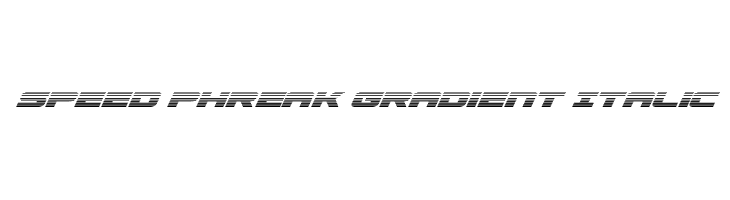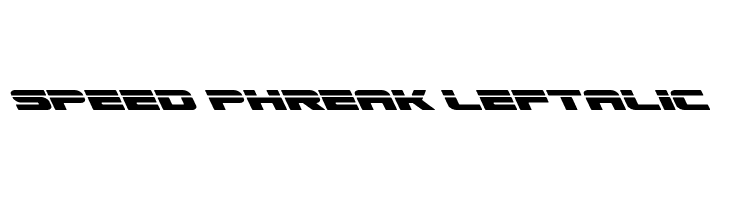
• Speed Phreak Gradient Italic 字体
A dynamic, gradient italic font with a futuristic and speedy appearance.
• Speed Phreak Halftone 字体
A bold, futuristic font with a halftone effect and dynamic lines.
• Speed Phreak Halftone Italic 字体
A bold, italicized font with a halftone effect, perfect for dynamic and modern designs.
• Speed Phreak Italic 字体
A bold, italicized font with a futuristic and dynamic style.
• Speed Phreak Laser 字体
A futuristic, segmented font with bold, geometric letterforms.
• Speed Phreak Laser Italic 字体
A futuristic, segmented italic font with bold, angular lines and a dynamic style.
• Speed Phreak Leftalic 字体
A bold, left-italic, futuristic font with a dynamic, fast-paced look.
• Speed Phreak Outline 字体
A futuristic, geometric outline font with bold, uniform strokes and a modern aesthetic.
• Speed Phreak Outline Italic 字体
A futuristic, italic outline font with a bold, geometric style.
• Speed Phreak Semi-Italic 字体
A bold, semi-italic font with a futuristic and dynamic design.